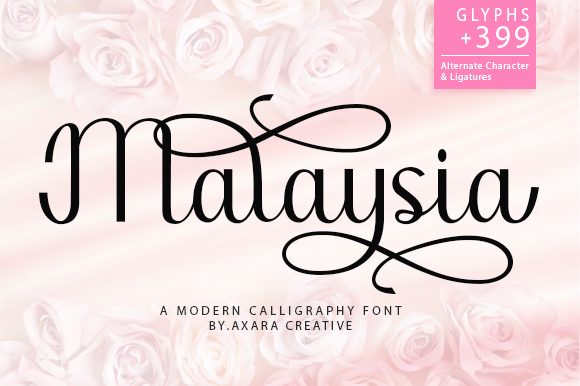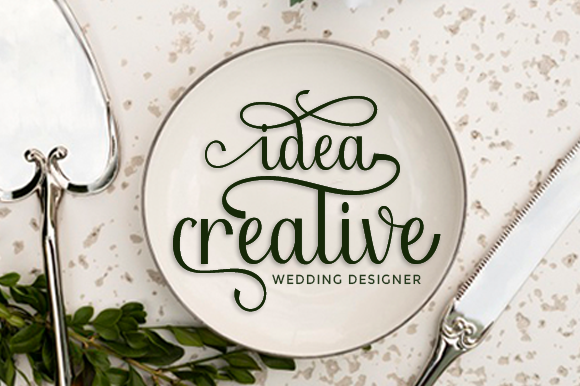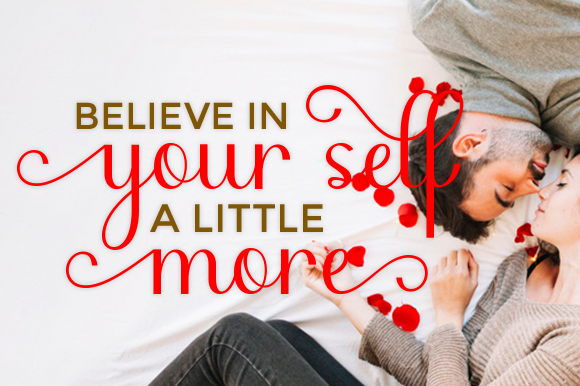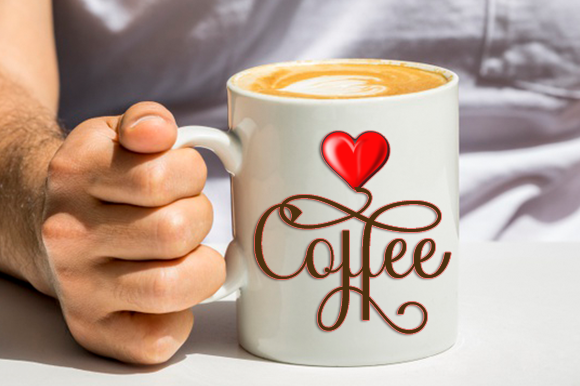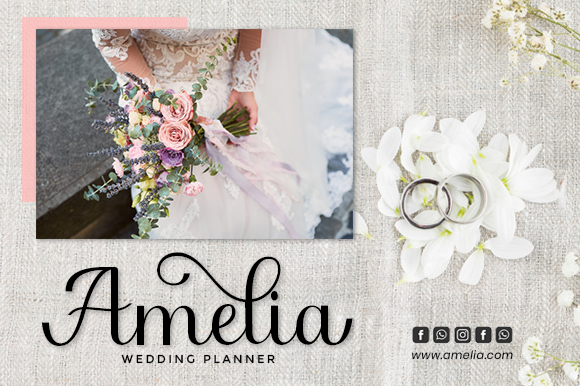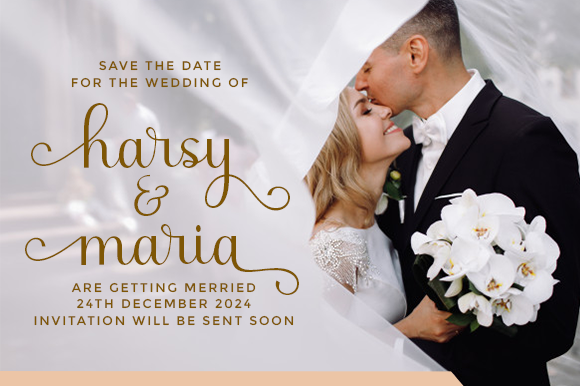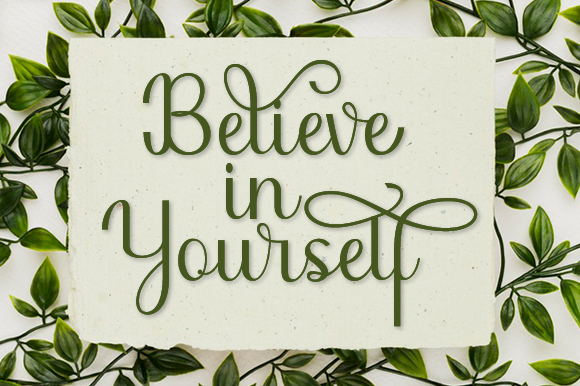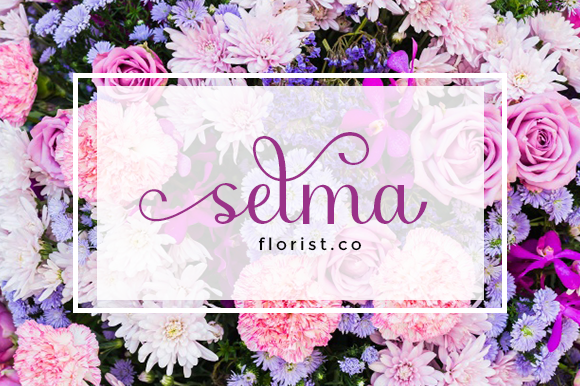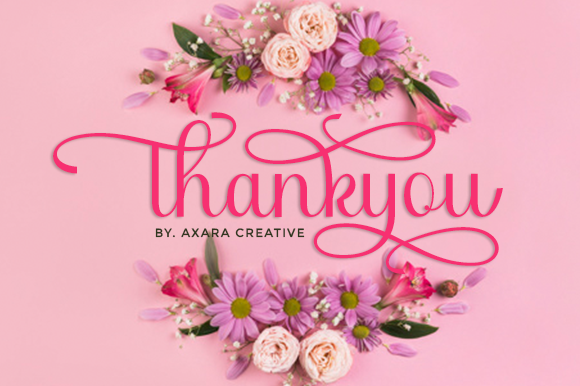
Malaysia Font
About Malaysia Font
Malaysia is inspired by classic typography and brings its own unique style to any design project. Use this gorgeous and unique handwritten to bring any DIY project to life!